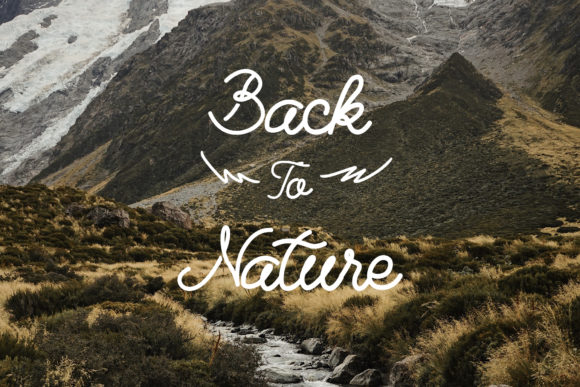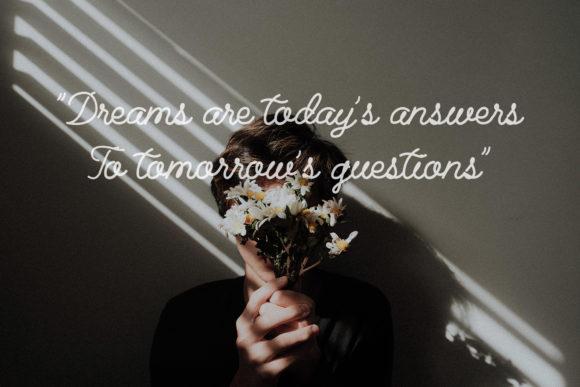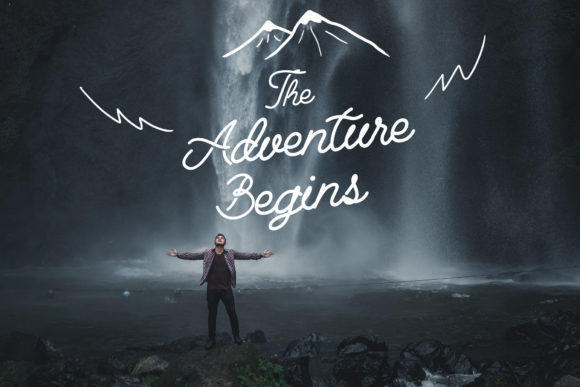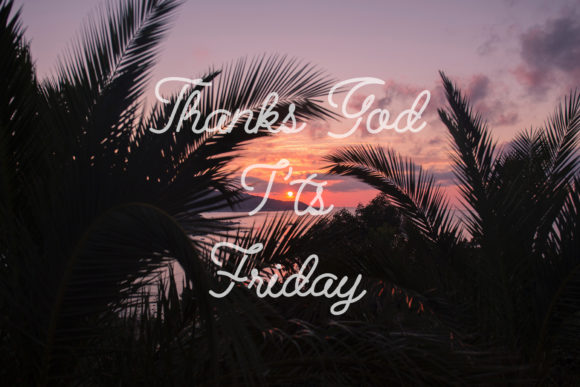
Friday Morning Font
About Friday Morning Font
Friday Morning is a stunning and delicate handwritten font that will turn any creative project into a stand out. Fall in love with its romantic and authentic charm.